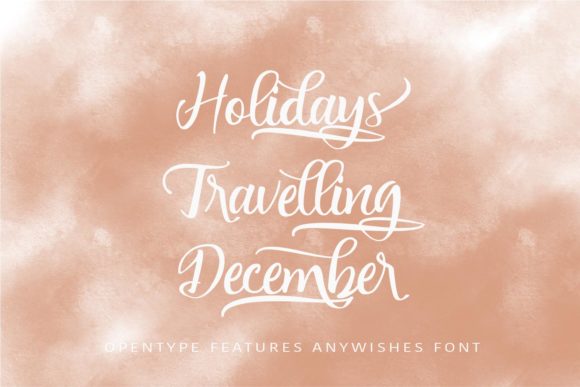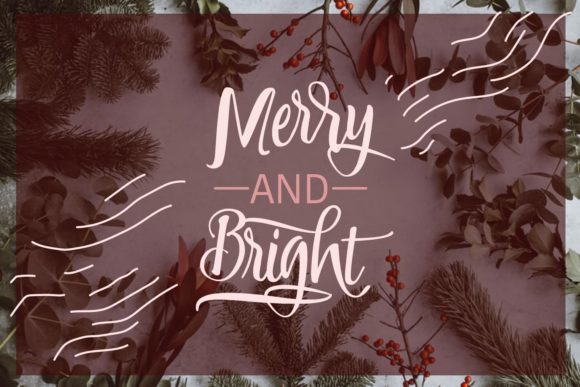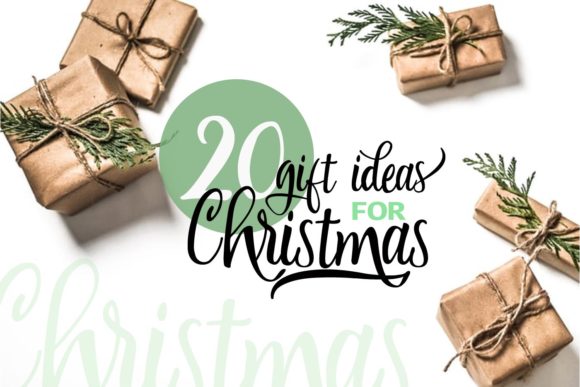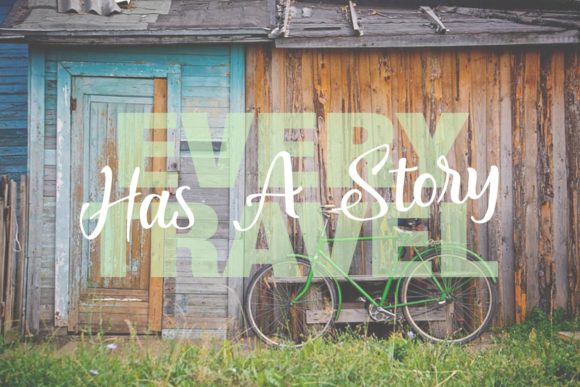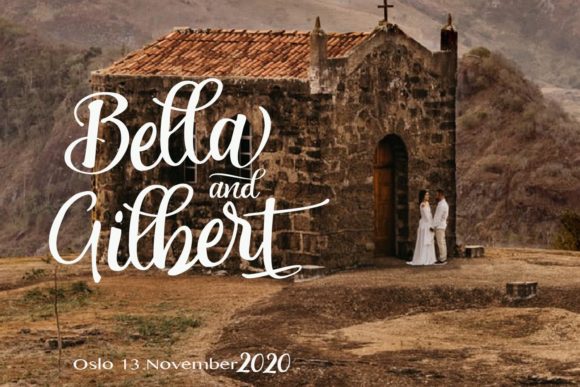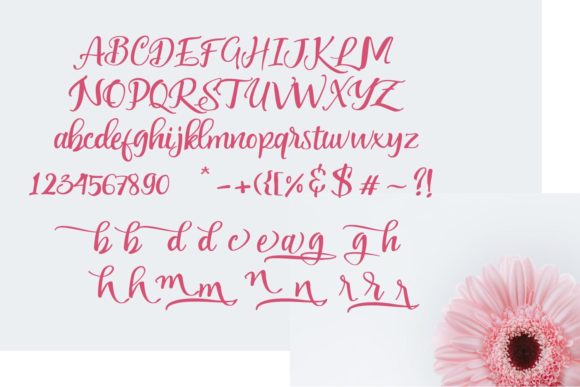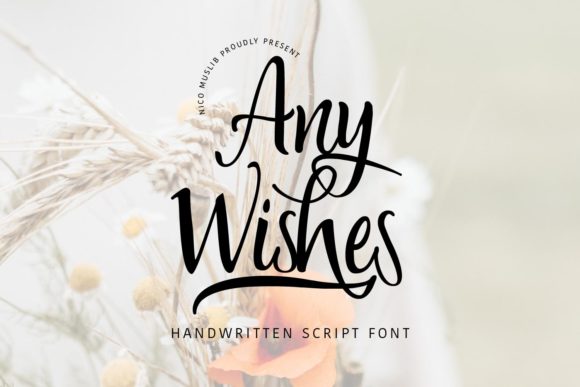
The Sweet Surprise of Any Wishes Font
Have you ever been in the middle of a design project, and suddenly, you just can’t seem to find the right font? I recall a particularly frustrating moment when a client asked for a romantic and playful font for their wedding invitation suite. I scoured the internet, tried countless fonts, but nothing seemed quite right. That was until I stumbled upon Any Wishes font – a sweet and cursive handwritten font that instantly captured the essence of the project.
A Personal Review of Any Wishes Font
I’m excited to share my honest review of Any Wishes font, and what makes it a fantastic addition to any designer’s toolkit.
• Sweet and Cursive: Any Wishes font boasts a beautiful, cursive script that’s perfect for adding a touch of whimsy to your designs.
• Versatile: This font is incredibly versatile and can be used on a variety of design projects, from wedding invitations to branding materials.
• 💕 Romantic and Playful: Any Wishes font exudes a sense of romance and playfulness, making it ideal for projects that require a touch of elegance and fun.
While Any Wishes font is an excellent choice for many projects, there are a few minor quirks to be aware of:
• 🤔 Limited Use in Small Sizes: As with many script fonts, Any Wishes can become a bit tricky to read in very small sizes. It’s best used in larger sizes (around 18pt and up) to ensure optimal readability.
• ⚠️ Occasional Kerning Issues: Some users have reported occasional kerning issues when using the font in certain design applications. However, these issues can usually be easily addressed with a bit of manual kerning.
The Backstory of Any Wishes Font
Any Wishes font was designed with love and care by a talented type designer who wanted to create a font that would bring joy and romance to people’s lives. The designer’s inspiration came from classic script fonts, combined with a modern twist to make it fresh and exciting.
Author Nico Muslib
Q: What type of projects is Any Wishes font best suited for?
A: Any Wishes font is perfect for a variety of projects, including wedding invitations, branding materials, social media graphics, and more.